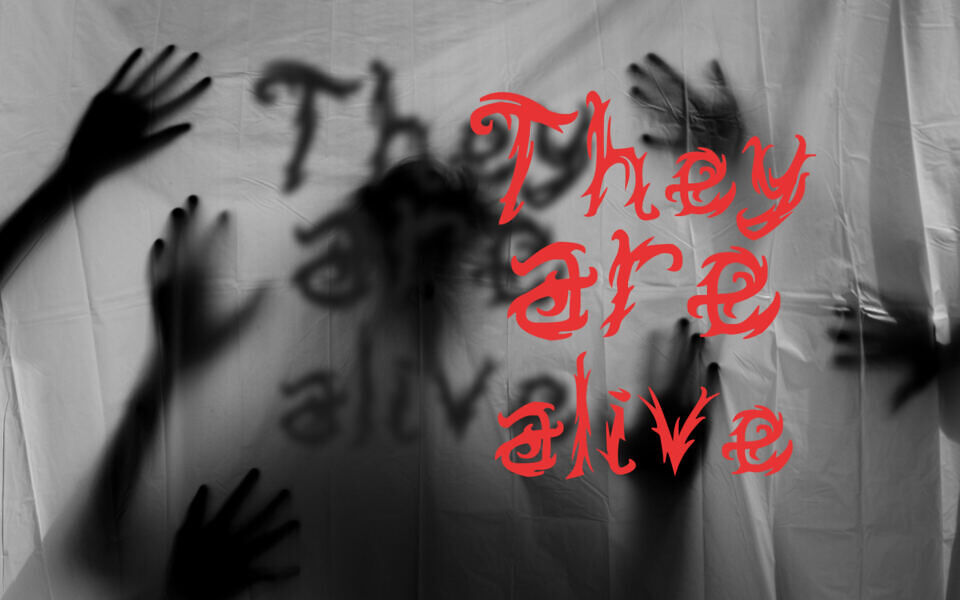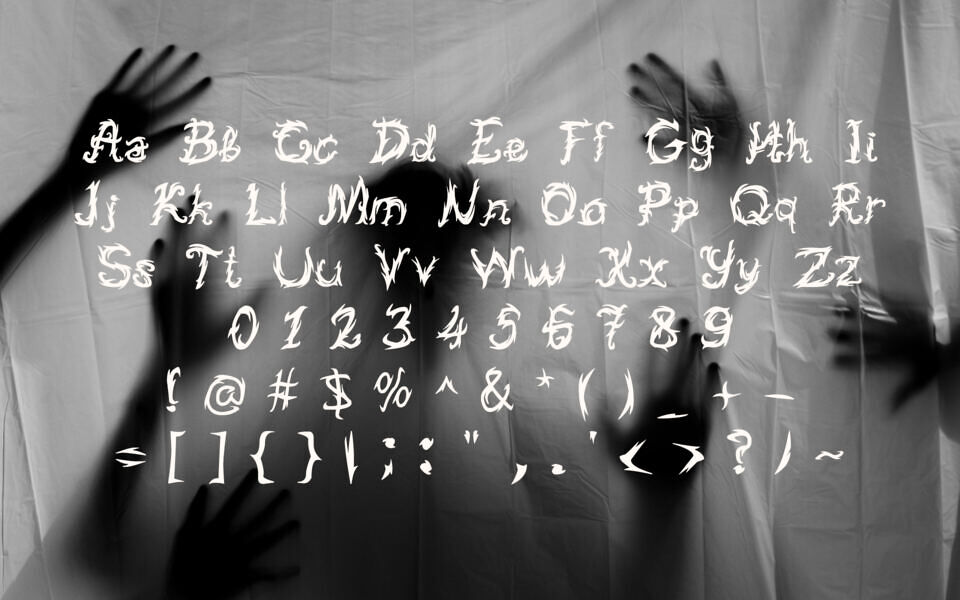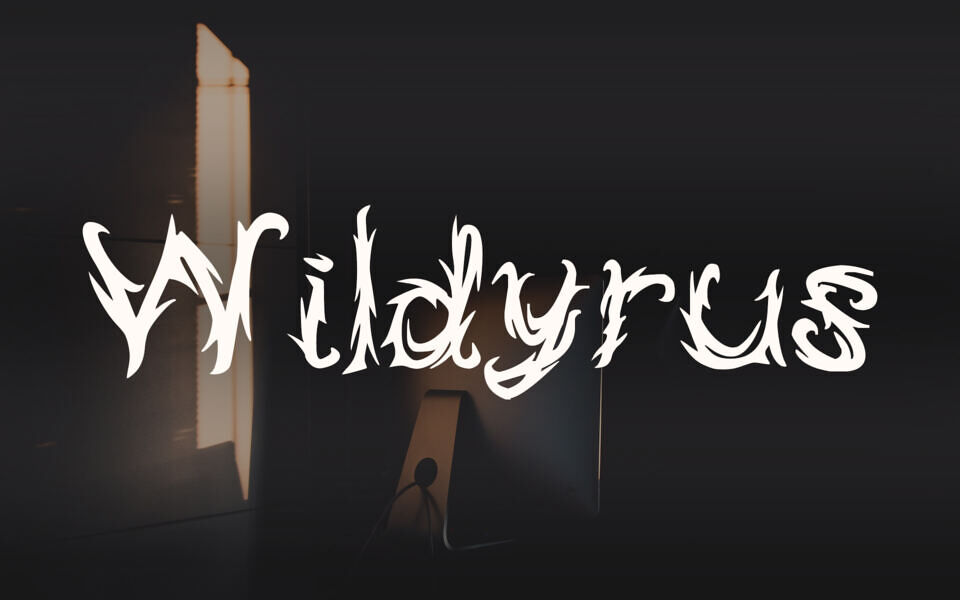
Wildyrus is a modern freeware font by Ivan Guretskiy, with a wild, jagged, and chaotic style. Inspired by themes of fire, tribal art, and the forest, its unique character shapes and dynamic lines evoke a sense of untamed energy.
The font supports both English and Russian alphabets and is well-suited for display use, particularly in projects with a dark, horror, or edgy aesthetic.